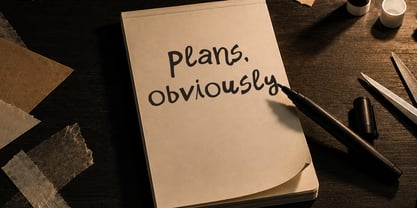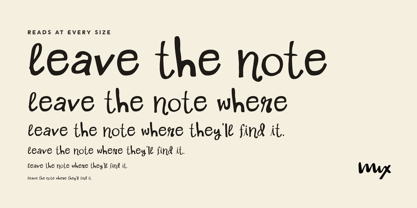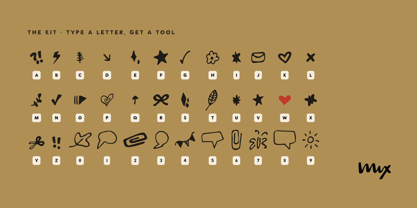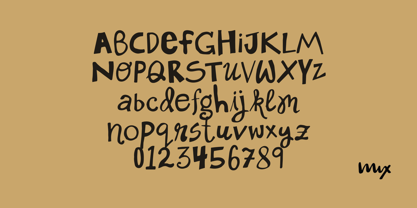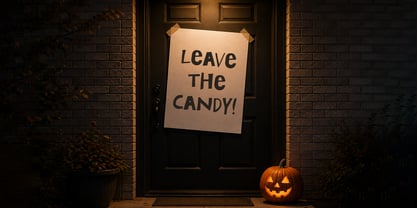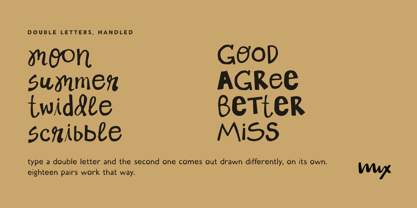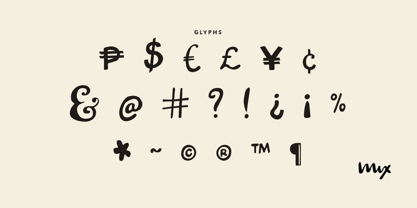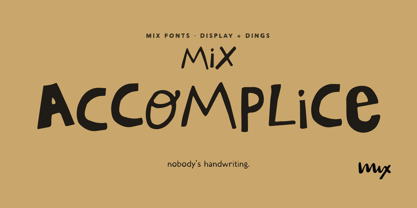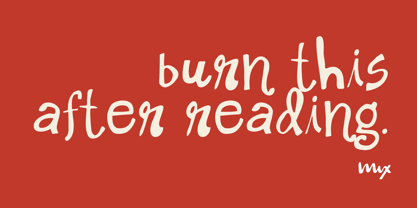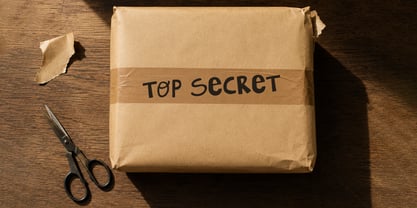
Mix Accomplice
by Mix Fonts
Mix Accomplice is built the way you'd build a ransom note, one letter at a time, each from a different hand. Nothing matches on purpose, and that's the whole trick.
Type a double letter and the second one comes out drawn differently on its own, so words never give the collage away. A full paragraph still reads like it was pieced together at a desk.
Mix Accomplice Dings is the companion kit: tape, scissors, paperclips, speech bubbles and the rest of the desk, one on every key.
Use it big on posters and packaging, or small in journals and sticker sheets. It stays legible either way and never stops looking cut and pasted.